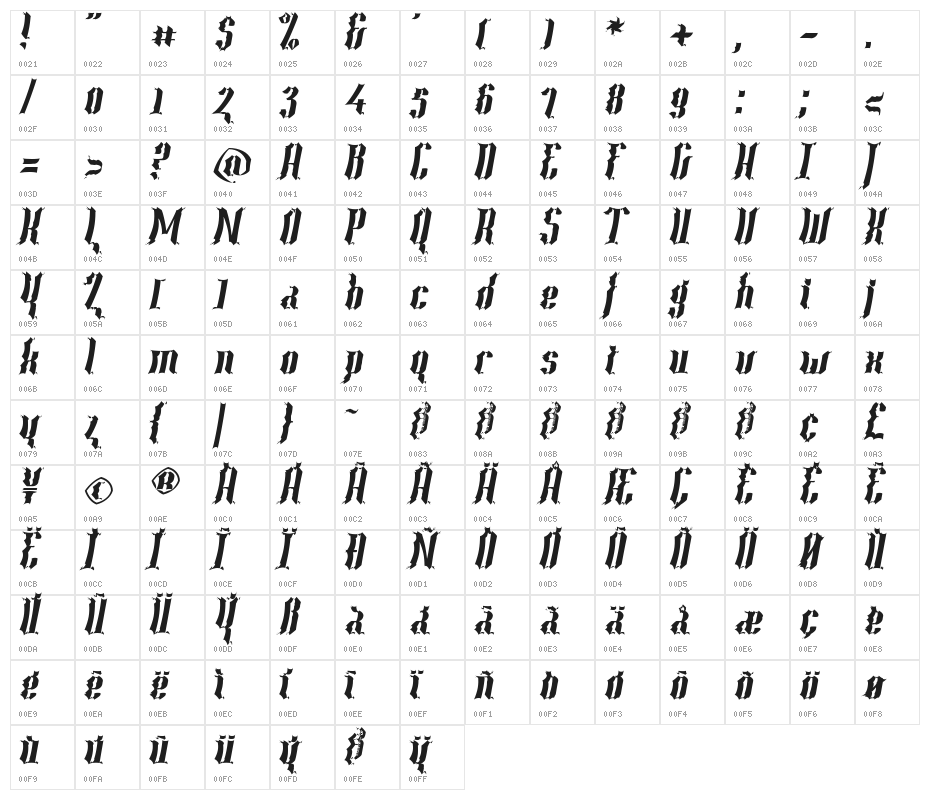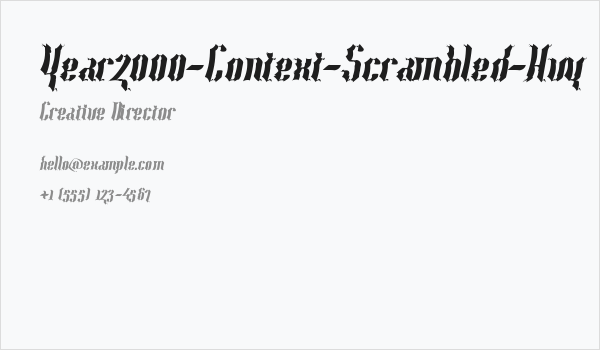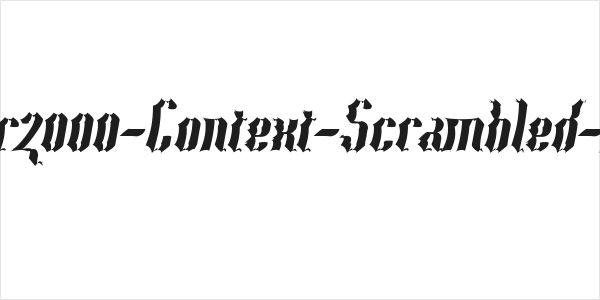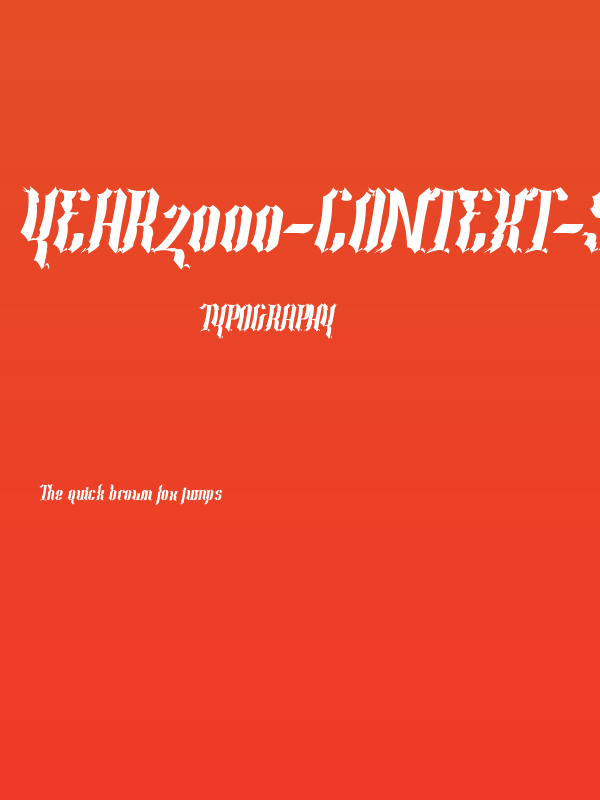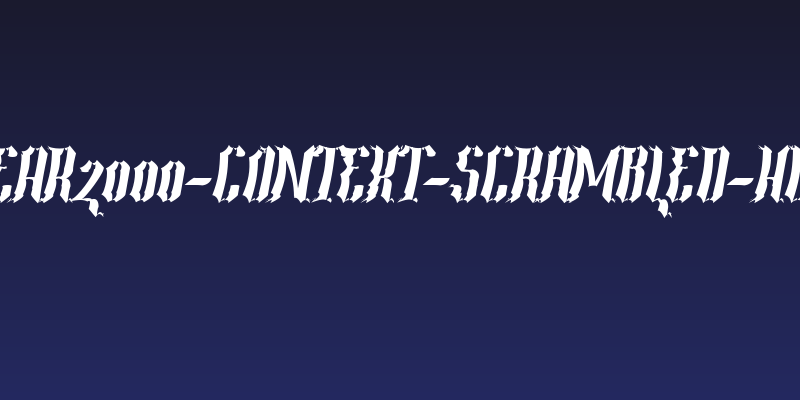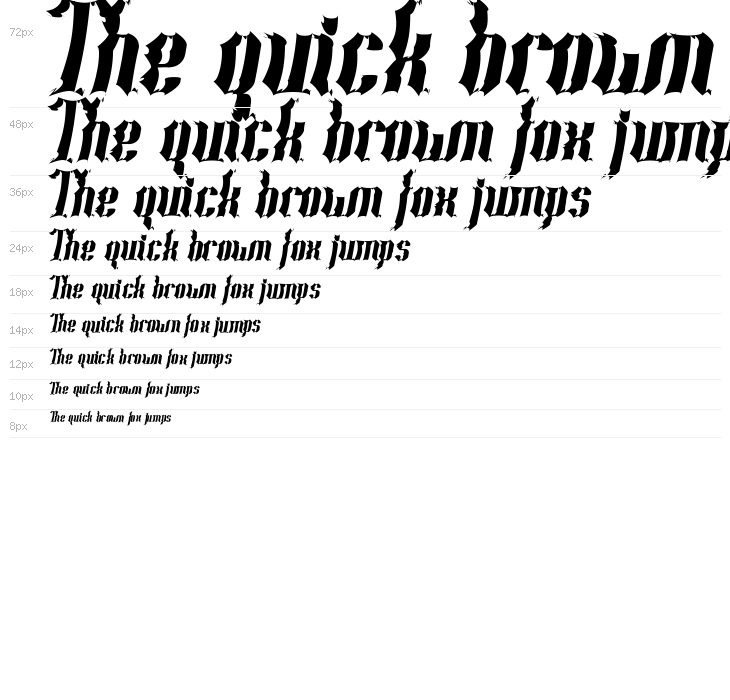
Year2000-Context-Scrambled-Hvy Font
Year2000-Context-Scrambled-Hvy Description
This font features a bold and dynamic style with sharp, angular edges and a distinct, aggressive appearance. The characters are heavily stylized, resembling a modern take on traditional blackletter fonts. Each letter is crafted with a sense of movement and energy, making it stand out with its unique, jagged forms. The uppercase and lowercase letters maintain a consistent design, while the numbers and special characters follow the same bold and edgy aesthetic. This font is designed to capture attention and convey a sense of strength and modernity.
| Proposed Projects | Ideal for edgy branding, album covers, posters, and any project requiring a strong, impactful visual statement. |